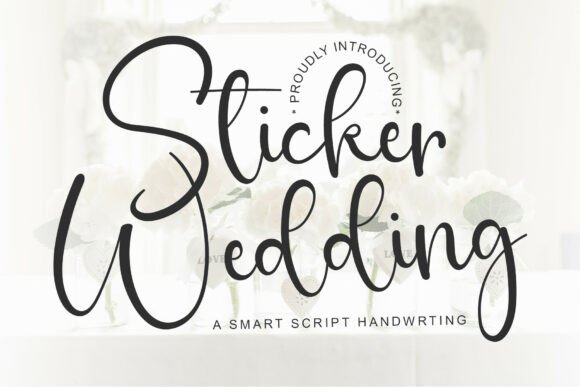
Introducing Sticker Wedding Font: The Perfect Choice for Your Special Day
Are you looking for a beautiful and elegant font to make your wedding stationery, branding, or marketing materials stand out? Look no further than Sticker Wedding Font, a sweet and cursive handwritten font that is sure to add a joyful and romantic touch to any project.
What is Sticker Wedding Font?
Sticker Wedding Font is a gorgeous, cursive handwritten font that is perfect for a variety of design ideas. Its gentle and elegant strokes make it an ideal choice for wedding-related projects, such as wedding invitations, save-the-date cards, and thank-you notes. However, its versatility also makes it suitable for other design projects, including branding, logos, greeting cards, fashion, lookbooks, and marketing promotions.
Key Features of Sticker Wedding Font
- Sweet and Cursive Handwritten Style: Sticker Wedding Font features a beautiful, cursive handwritten style that is both elegant and casual.
- Versatile and Flexible: This font can be used for a wide range of design projects, from wedding stationery to branding and marketing materials.
- Easy to Read: The font’s clear and gentle strokes make it easy to read, even in smaller sizes.
- Scalable: Sticker Wedding Font is highly scalable, making it perfect for use in various design projects, from business cards to billboards.
How to Use Sticker Wedding Font
Sticker Wedding Font can be used in a variety of ways to add a touch of elegance and romance to your design projects. Here are a few ideas:
- Wedding Stationery: Use Sticker Wedding Font to create beautiful wedding invitations, save-the-date cards, and thank-you notes.
- Branding and Logo Design: This font is perfect for creating elegant and sophisticated brand identities, including logos, business cards, and letterheads.
- Greeting Cards: Add a personal touch to your greeting cards, including birthday cards, anniversary cards, and holiday cards.
- Fashion and Lookbooks: Use Sticker Wedding Font to create stylish and fashionable lookbooks, brochures, and catalogs.
- Marketing Promotions: This font is ideal for creating eye-catching marketing materials, including flyers, posters, and social media graphics.
Tips for Using Sticker Wedding Font Effectively
To get the most out of Sticker Wedding Font, here are a few tips to keep in mind:
- Use it Sparingly: While Sticker Wedding Font is beautiful, it’s best to use it sparingly to avoid overwhelming your design. Use it for headings, titles, or key messages to add emphasis and elegance.
- Pair it with Other Fonts: Sticker Wedding Font pairs well with other fonts, including sans-serif fonts and serif fonts. Experiment with different font combinations to find the perfect look for your design.
- Adjust the Size and Color: Adjust the size and color of Sticker Wedding Font to suit your design needs. A larger size can make a bold statement, while a smaller size can add a touch of elegance.
Why Choose Sticker Wedding Font?
There are many reasons why Sticker Wedding Font is an excellent choice for your design projects. Here are a few:
- Unique and Elegant: Sticker Wedding Font features a unique and elegant style that will make your design stand out.
- Highly Versatile: This font can be used for a wide range of design projects, from wedding stationery to branding and marketing materials.
- Easy to Read: The font’s clear and gentle strokes make it easy to read, even in smaller sizes.
- Scalable: Sticker Wedding Font is highly scalable, making it perfect for use in various design projects, from business cards to billboards.
In conclusion, Sticker Wedding Font is a beautiful and elegant font that is perfect for adding a touch of romance and sophistication to your design projects. Its versatility, readability, and scalability make it an excellent choice for a wide range of design projects, from wedding stationery to branding and marketing materials. So why wait? Download Sticker Wedding Font today and start creating stunning designs that will leave a lasting impression!